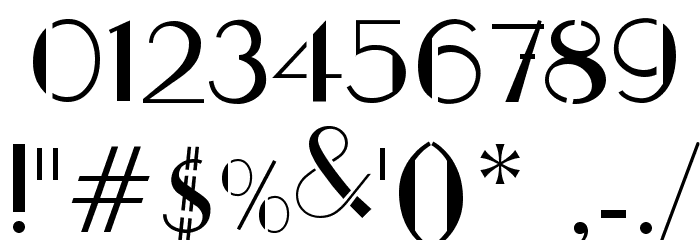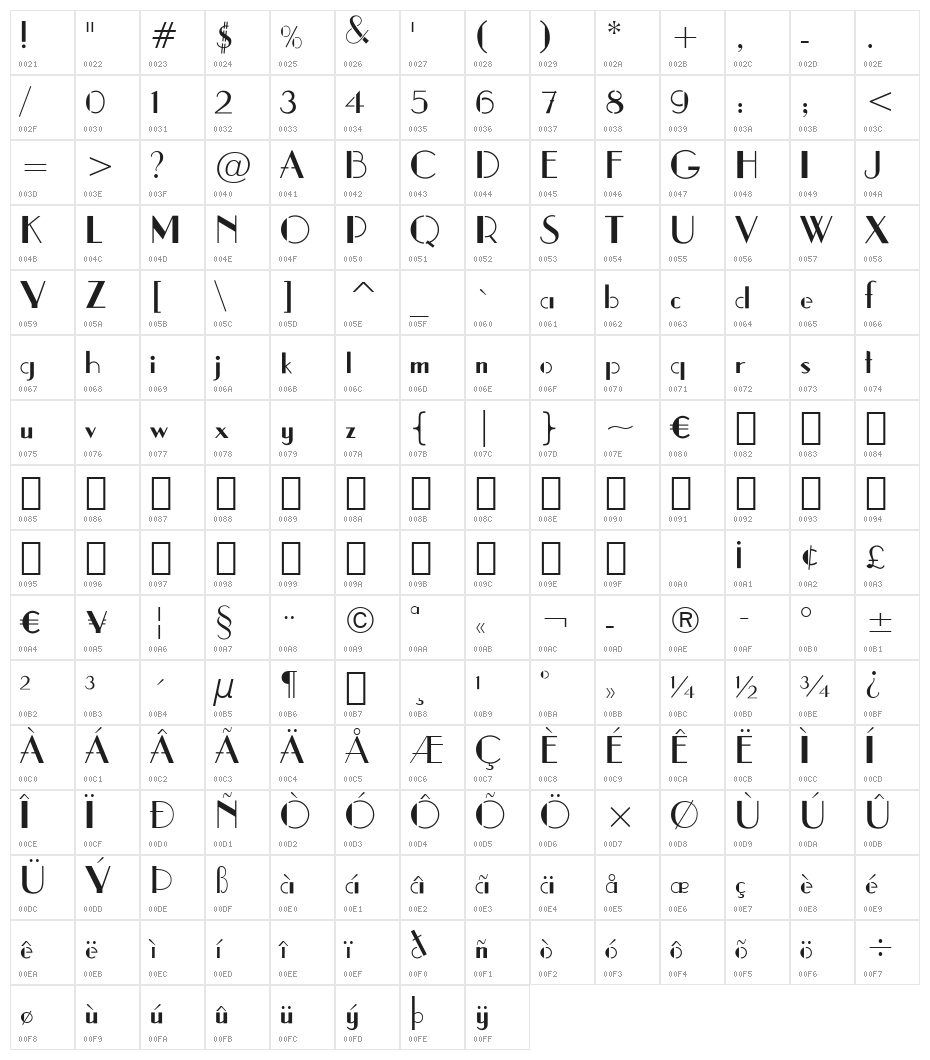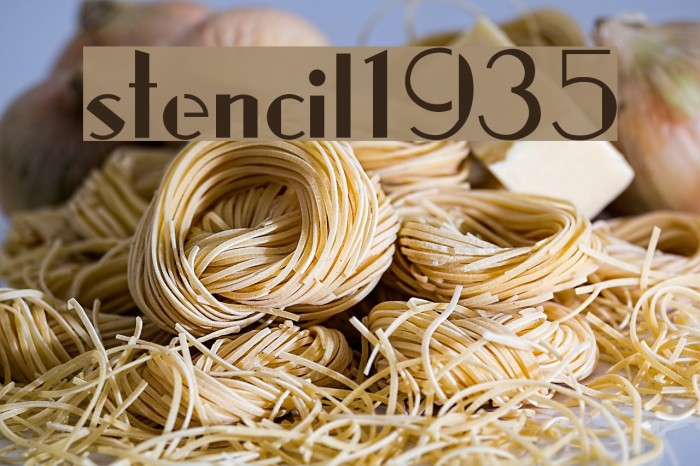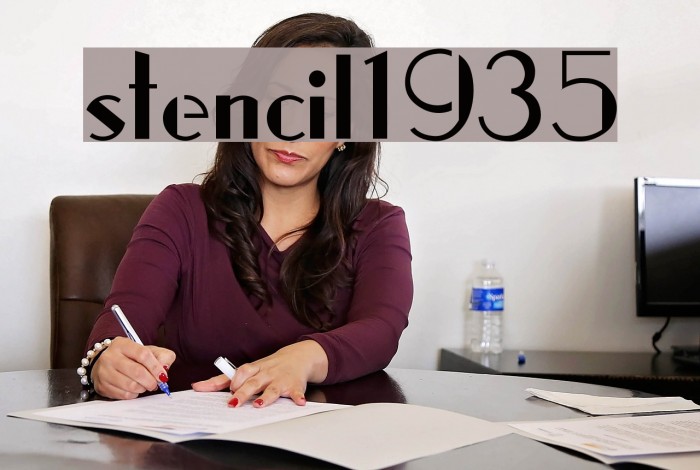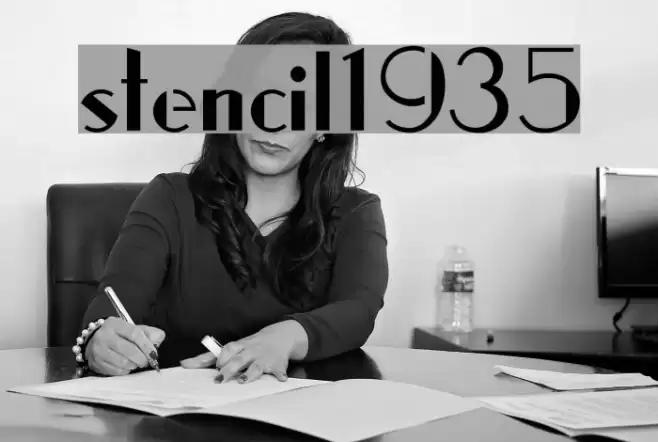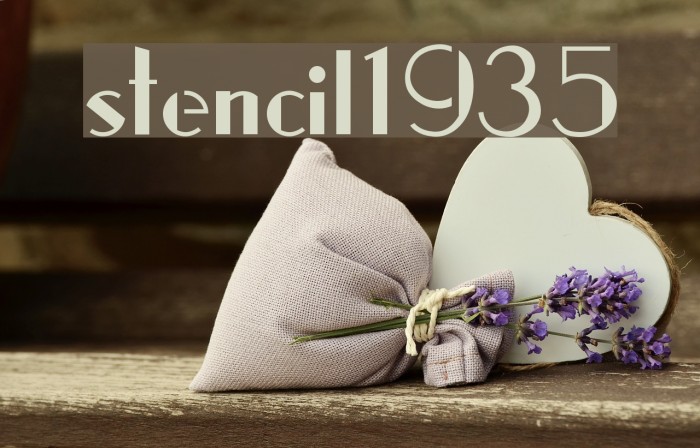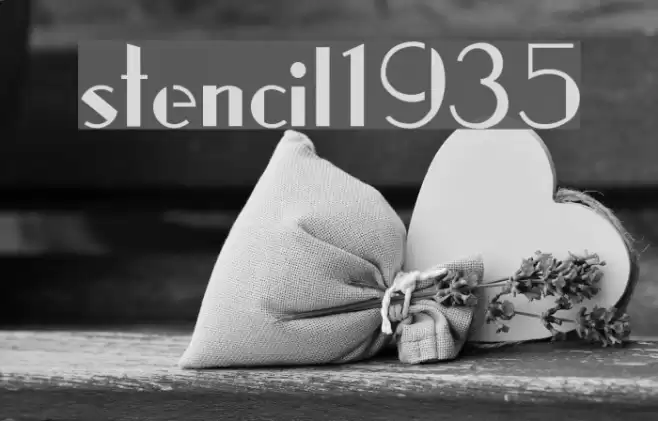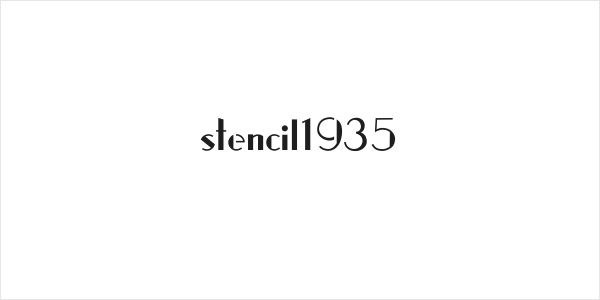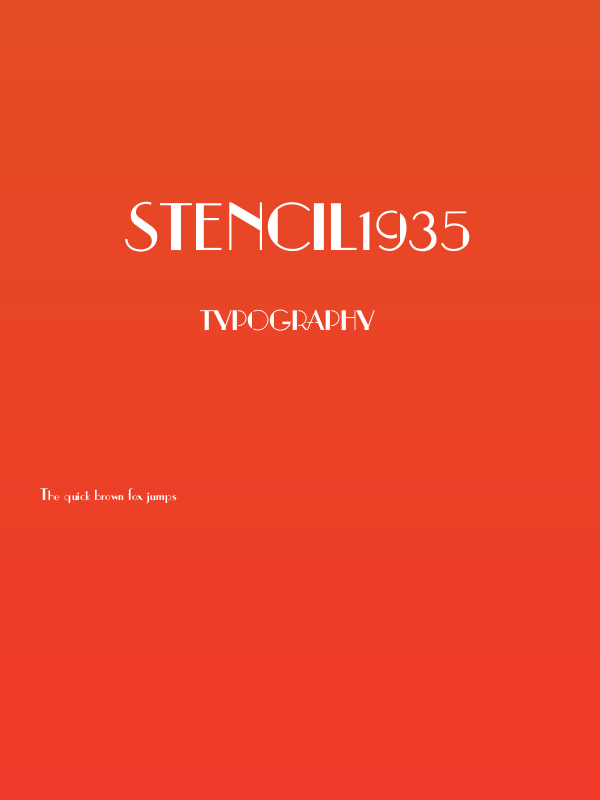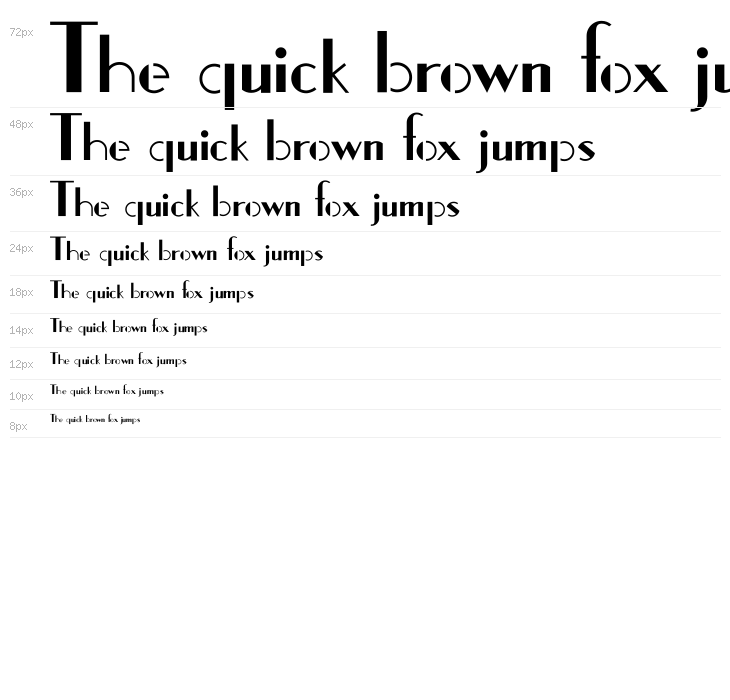
stencil1935 Font
stencil1935 Description
This font features a bold and striking design with a distinct stencil effect, characterized by breaks in the strokes that give it a unique, industrial feel. The uppercase letters are particularly angular and geometric, while the lowercase letters maintain a consistent style with slightly softer curves. Numbers and special characters follow the same design principles, ensuring uniformity across all elements. The font's high contrast between thick and thin strokes adds to its dramatic appearance, making it ideal for attention-grabbing headlines or titles. Its modern and edgy aesthetic makes it suitable for projects that require a bold statement.